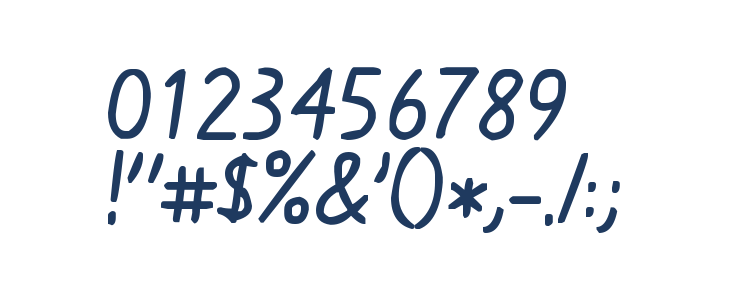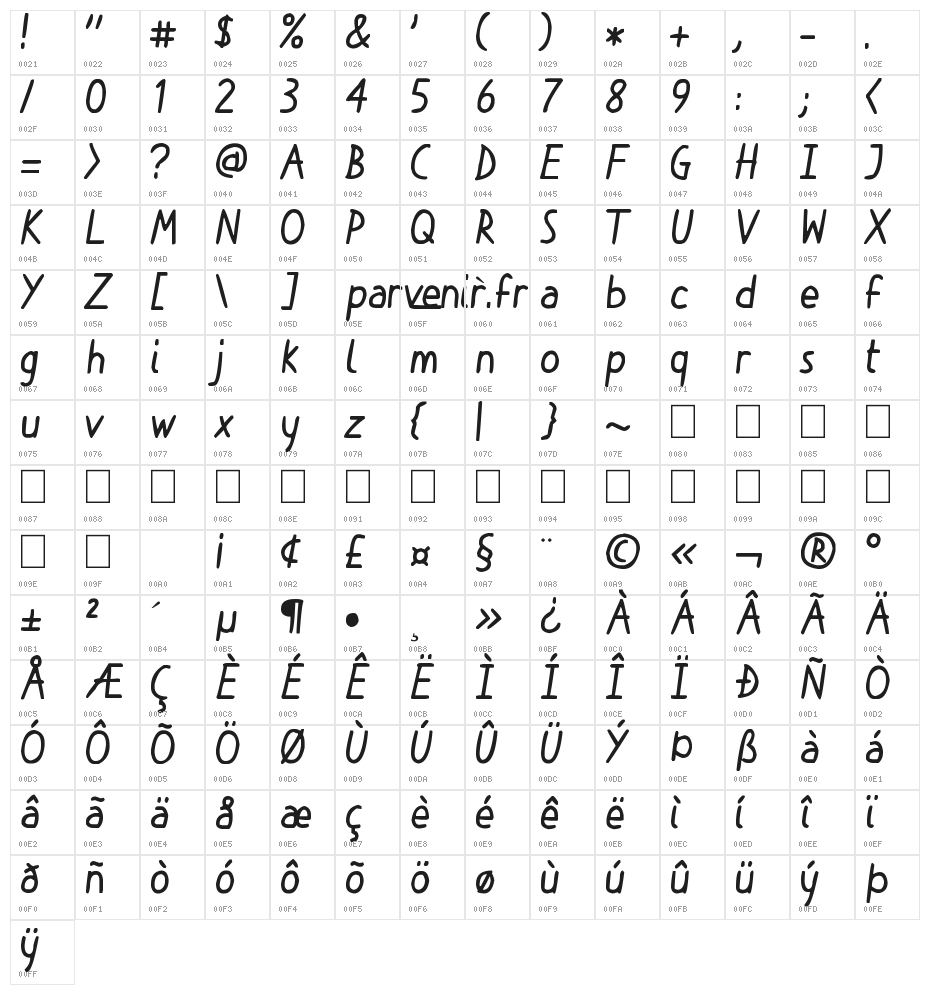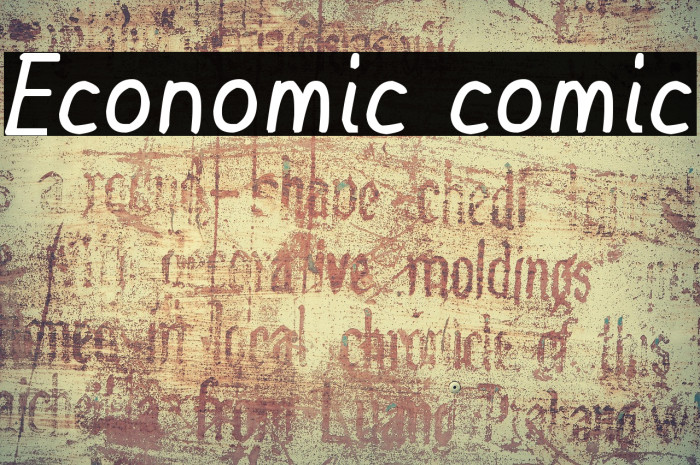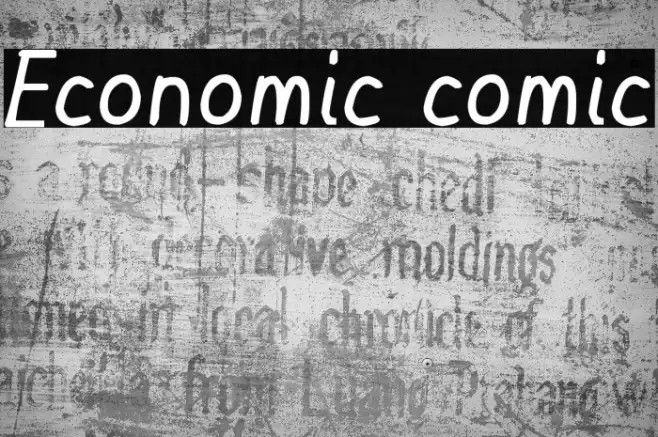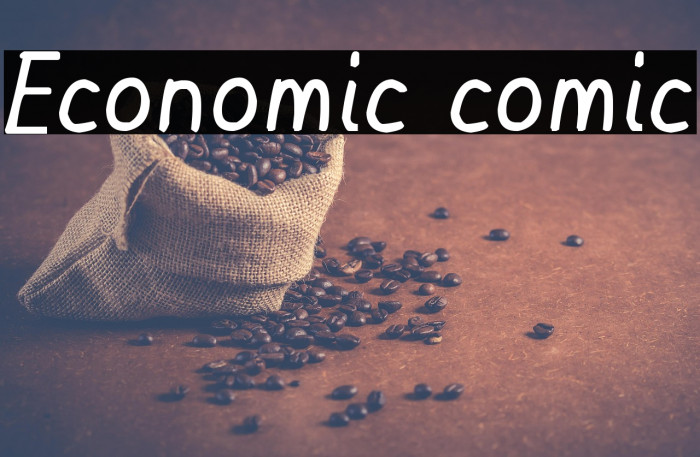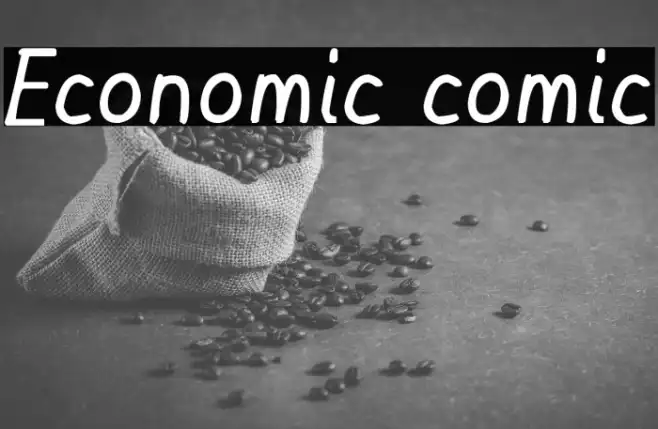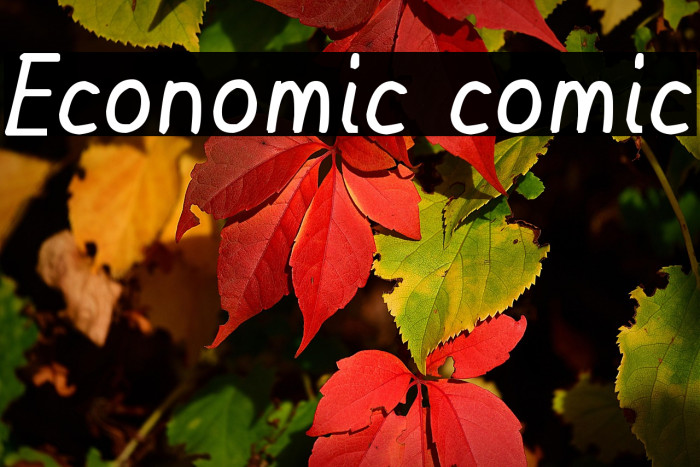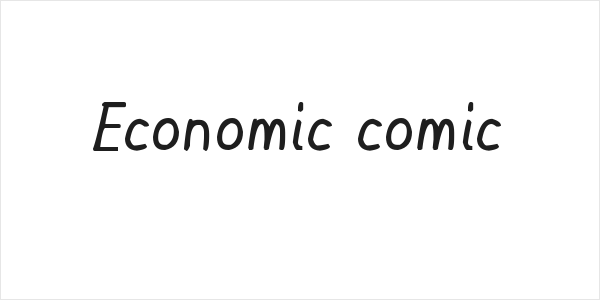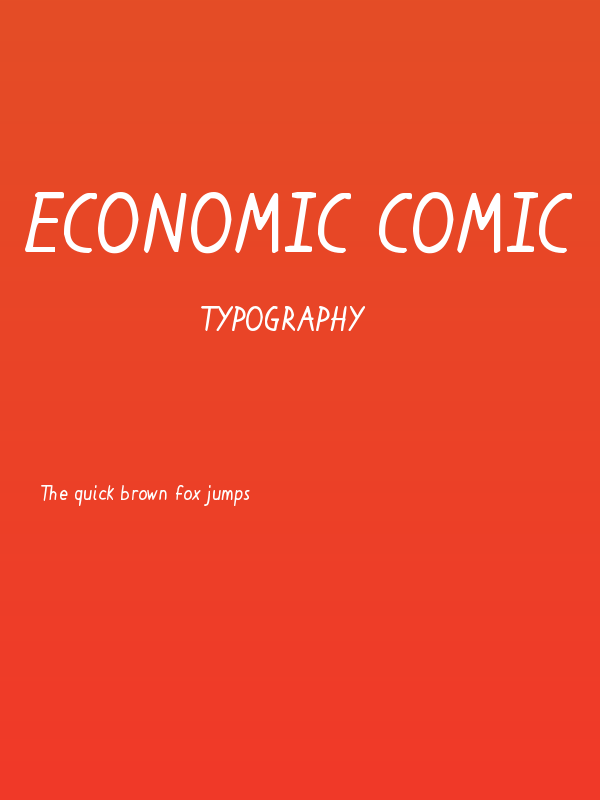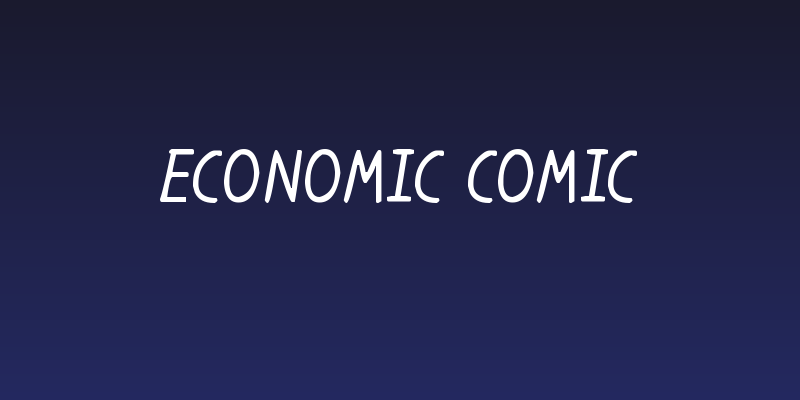
Economic comic Font
Economic comic Description
This playful and informal font features a handwritten style with rounded edges and a casual appearance. The letters are slightly slanted, giving it a dynamic and lively feel. The uppercase and lowercase characters maintain a consistent flow, with the lowercase letters exhibiting a friendly and approachable demeanor. The numerals are bold and clear, ensuring readability. Special characters are well-integrated, maintaining the overall whimsical aesthetic. This font is perfect for projects that require a touch of humor and creativity, making it ideal for comics, children's books, and casual branding.
| Proposed Projects | Ideal for comics, children's books, casual branding, and playful designs. |